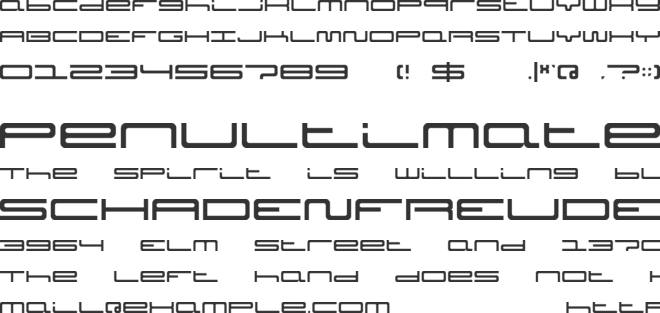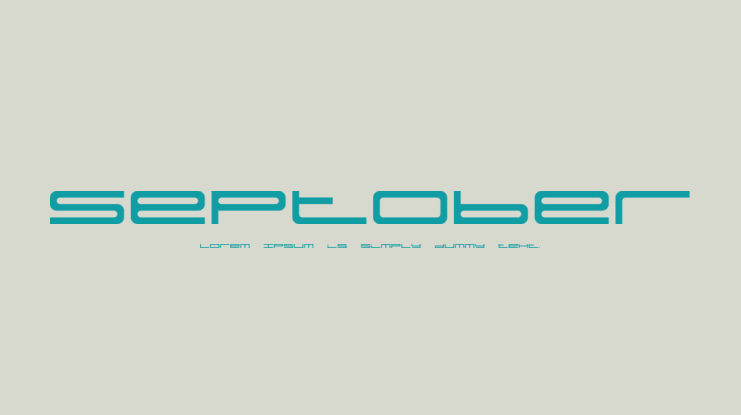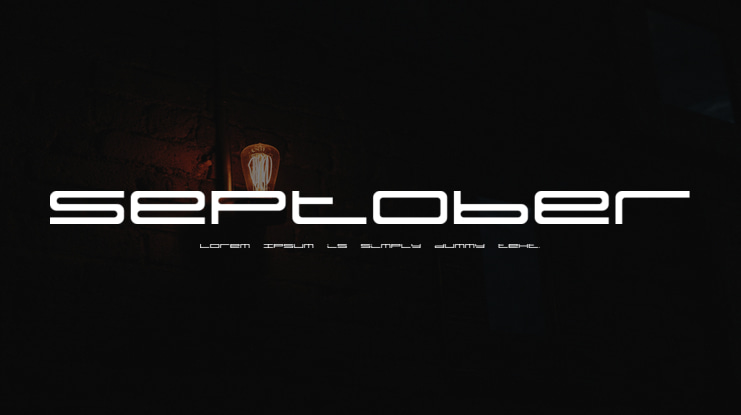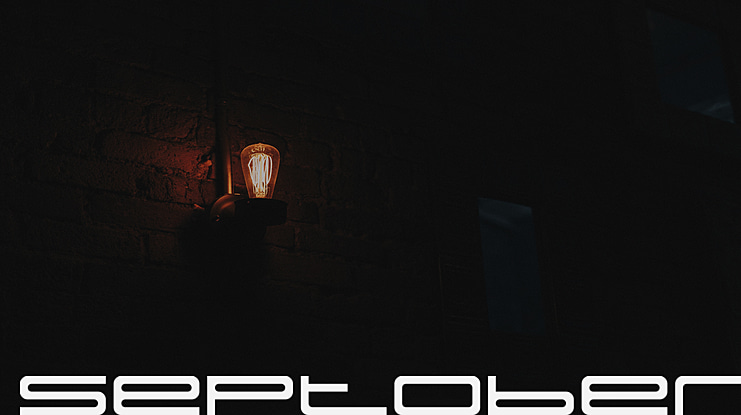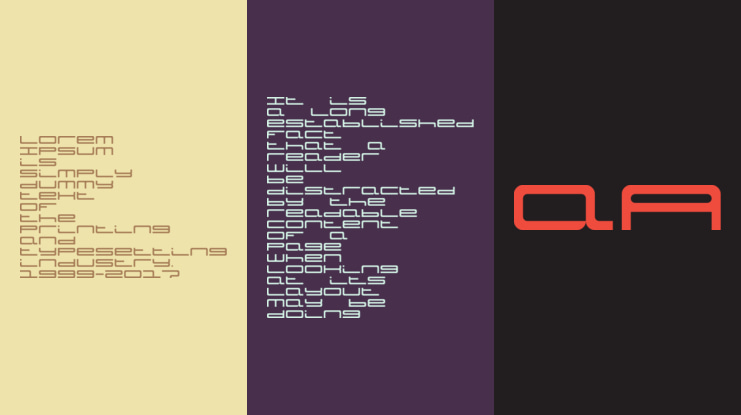
Septober Font
Jamie Place
Septober is a wide,long,extended techno based design. (Why do the describing words all mean the same?) Free for personal use. © FontBlast Design 2012-2013.